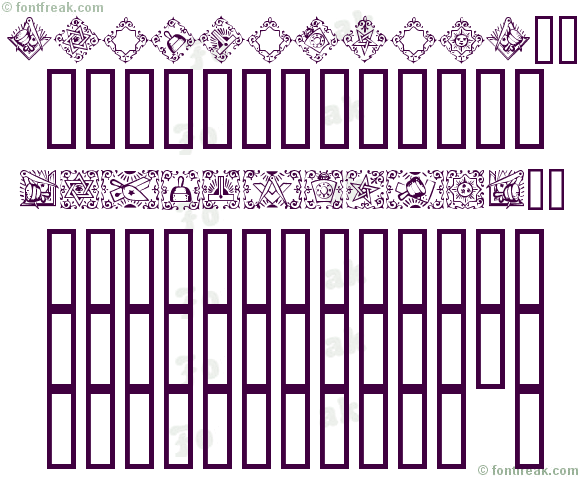
Masonic
About Masonic
The Masonic font by Listemageren is a distinctive decorative typeface that stands out with its unique visual characteristics. Created in 1998, it features a blend of bold strokes and intricate details, making it ideal for various creative projects. The font showcases a moderate stroke weight with contrasting elements, which add depth and interest to each character. The spacing is thoughtfully designed to ensure legibility while maintaining a striking presence, making it suitable for both headlines and body text.
This font is particularly well-suited for use in wedding invitations, where its ornate style can convey elegance and sophistication. It also works wonderfully on movie posters, helping to create an eye-catching design that draws attention. Restaurant menus can benefit from the Masonic font's decorative flair, giving a unique personality to the dining experience. Additionally, this font can enhance branding materials for small businesses looking to establish a memorable identity.
Target audiences for the Masonic font include graphic designers seeking to add a touch of flair to their projects, small business owners aiming for unique branding, and content creators needing an eye-catching font for their digital media. The font’s versatility allows it to be adapted across various platforms, from print to digital.
What sets the Masonic font apart is its ability to blend tradition with contemporary design, appealing to a wide range of users. Its distinctive style and thoughtful craftsmanship make it a standout choice for anyone looking to elevate their projects. For those interested in exploring this unique typeface, a Masonic font free download is available, allowing you to incorporate its charm into your work effortlessly.